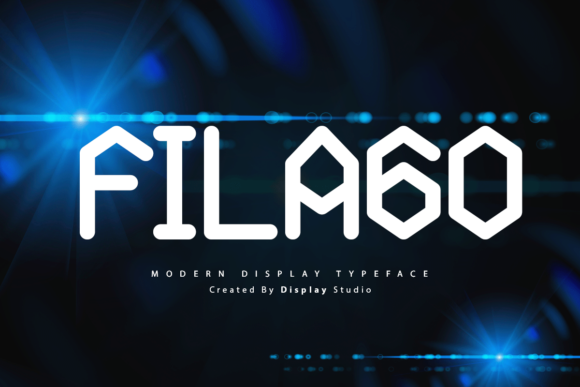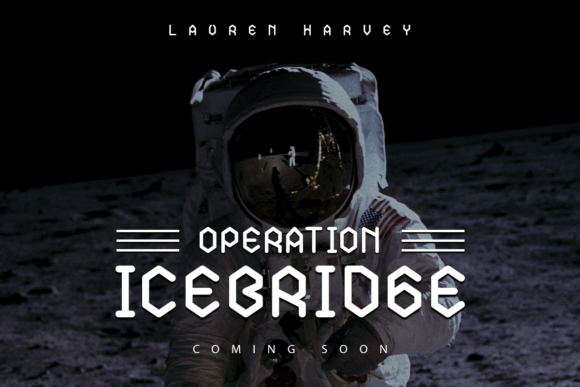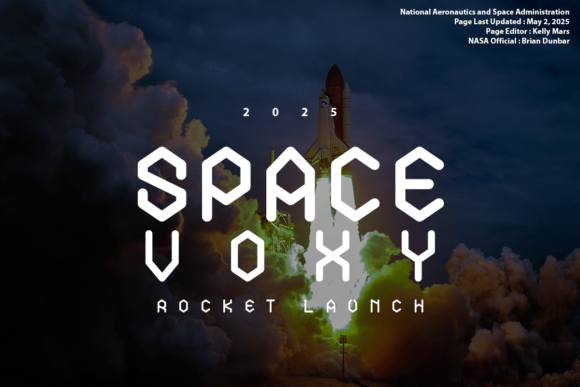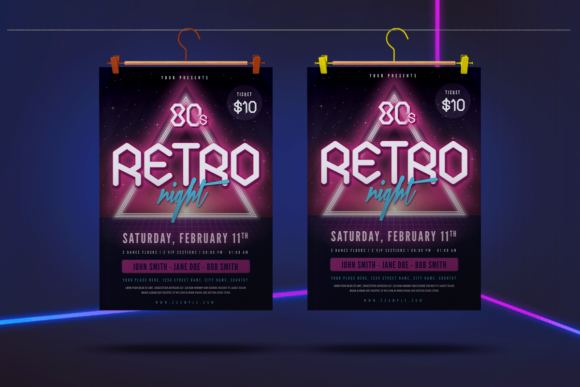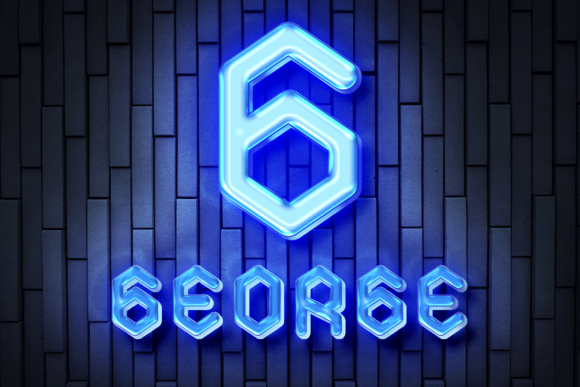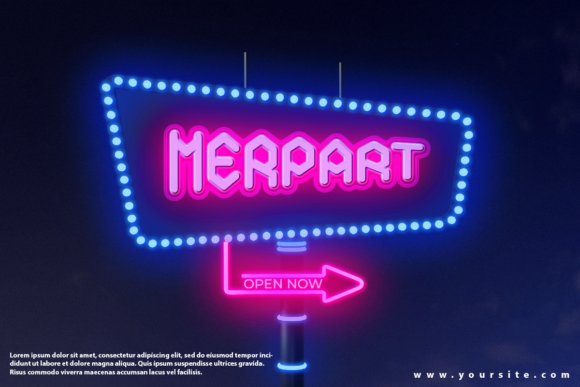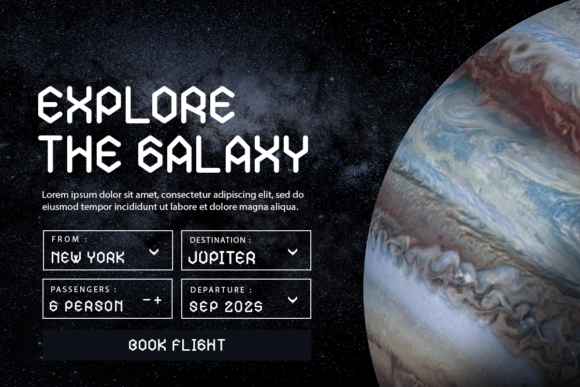
Unlocking the Power of Futuristic Design with Filago Font
Have you ever stared at a blank canvas, eager to bring your creative vision to life? The possibilities are endless, but sometimes it takes the right tool to spark inspiration. For designers and artists looking to infuse their work with a futuristic, high-tech touch, the Filago Font is a game-changer.
This cool and robotic styled display font is the perfect companion for any project that demands a cutting-edge aesthetic. Whether you’re designing a sci-fi novel, a futuristic video game, or a high-tech brand identity, Filago Font is the ideal choice. Its versatility and sleek design make it a valuable asset for designers who want to push the boundaries of their creativity.
Filago Font Key Features
- Font Family: Filago Font is a sans-serif font family.
- Unique Characteristics: Features a clean, modern design with subtle rounded edges and a high x-height, making it highly legible in digital environments.
Designer Review: Filago Font
Overall, I think Filago Font has some great qualities that make it a decent addition to any design project. ✨ One of the things I appreciate is its versatility. It comes in a range of weights and styles, making it suitable for various applications, from body text to headings.
Here are some specific things that work well in Filago Font:
- ✨ Elegant, refined feel that adds a touch of sophistication to any design
- ✨ Highly legible, even at small font sizes
- ✨ Supports a wide range of languages, making it a great option for international projects
- ⚠️ The font may feel a bit too formal for certain projects, lacking a bit of personality
- ⚠️ Some of the weights can appear a bit too similar, making it difficult to distinguish between them
Overall, I’d give Filago Font 3.5 out of 5 stars. While it’s not the most exciting font out there, it gets the job done and looks great in the right context. With a bit more development to address its limitations, it could become a real contender in the world of typography.
Tip: Use Filago Font for titles and headings to add a touch of elegance to your design.
Tip: Use Filago Font for logos and branding elements to create a consistent visual identity.
Tip: Use Filago Font for titles and headings to add a touch of sophistication to your presentation or document.
Filago Font is suitable for:
- Logo design and branding.
- Typography-based designs.
- Formal event invitations and programs.
Alternatives to Filago Font
1. Merriweather
Merriweather is a classic serif font, perfect for body text and long-form content. Its elegant and refined design makes it suitable for academic and professional publications.
Comparison to Filago Font: While both fonts are serif, Merriweather has a more traditional and formal feel, whereas Filago Font has a modern and minimalist aesthetic. Merriweather is also more readable in smaller font sizes.
Lato is a sans-serif font that offers a clean and modern look, ideal for headlines and titles. Its friendly and approachable design makes it suitable for blogs and websites that require a casual tone.
Comparison to Filago Font: While both fonts are modern and minimalist, Lato has a more playful and energetic feel, whereas Filago Font has a more neutral and understated aesthetic. Lato is also more suitable for digital media and screens.
3. Playfair Display
Playfair Display is a luxurious and elegant font, perfect for high-end branding and advertising. Its intricate details and ornate design make it suitable for special occasions and luxury products.
Comparison to Filago Font: While both fonts are elegant and refined, Playfair Display has a more opulent and dramatic feel, whereas Filago Font has a more subtle and sophisticated aesthetic. Playfair Display is also more suitable for print materials and paper-based products.